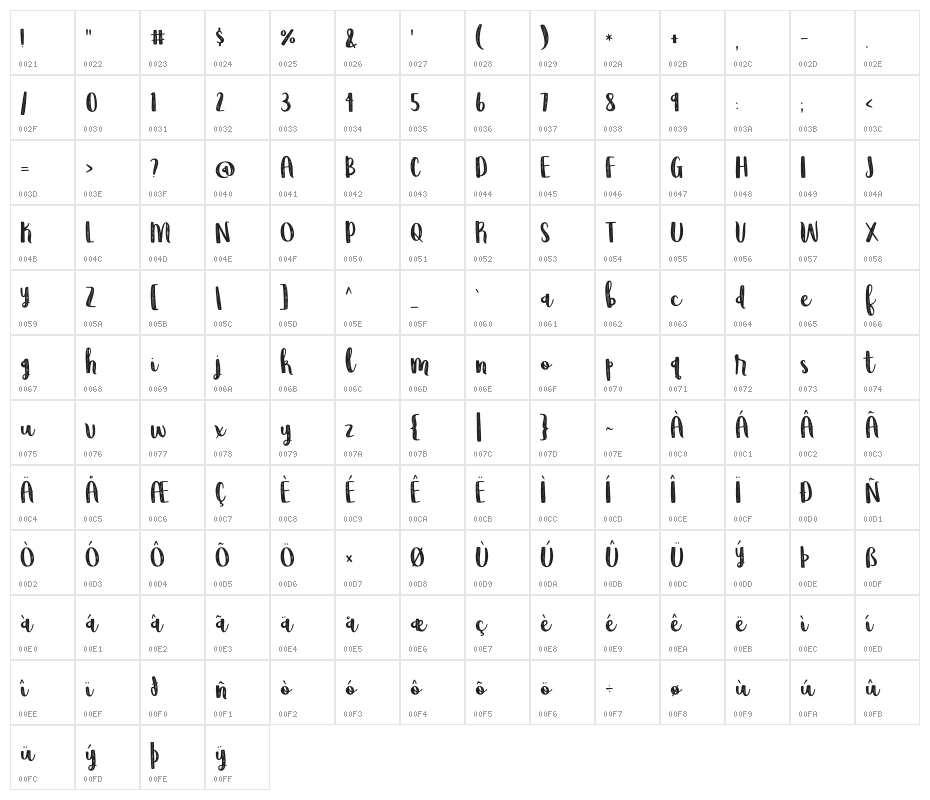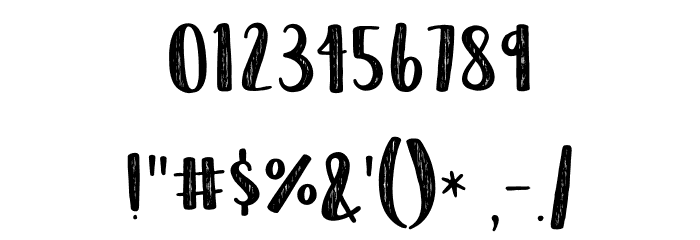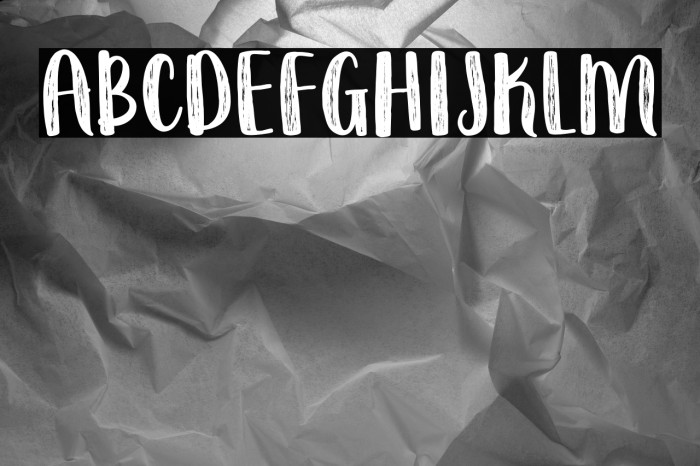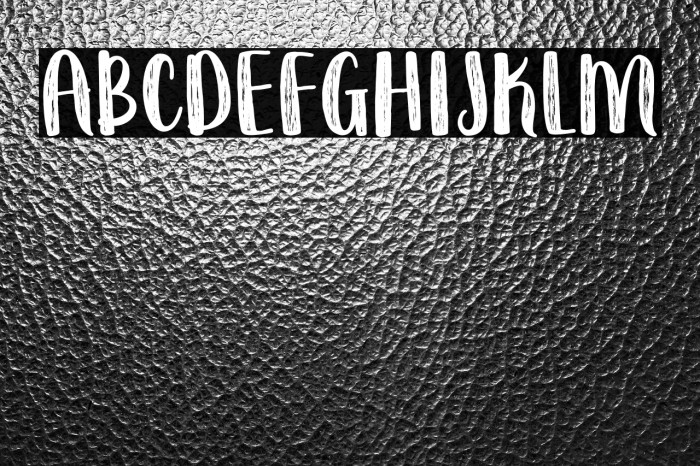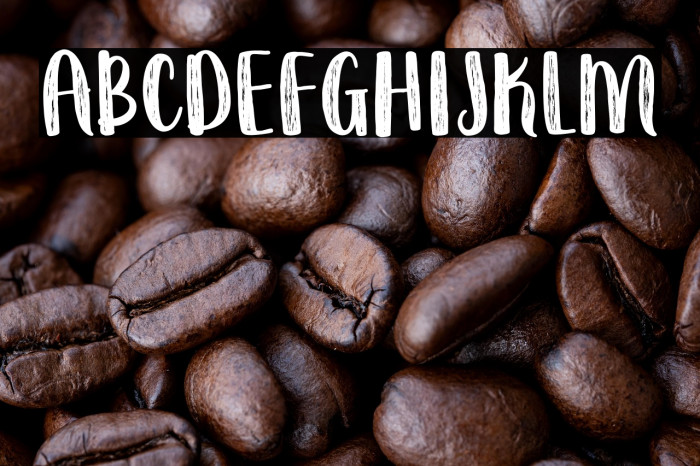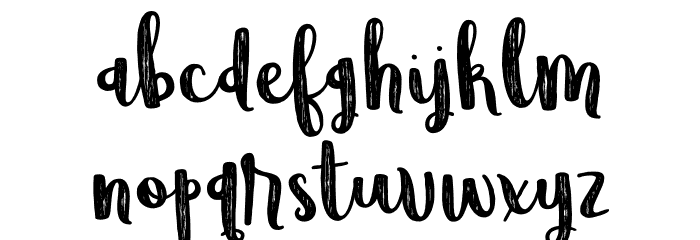
WildemountRough Font
WildemountRough Description
This font features a bold, hand-drawn style with a rough texture that gives it a rustic and organic feel. The letters are slightly irregular, adding to the handcrafted appearance. The uppercase and lowercase letters maintain a consistent style, with rounded edges and a playful, casual vibe. The numerals and special characters are designed to match the overall aesthetic, making it suitable for projects that require a touch of personality and creativity. The font's unique texture and style make it stand out, ideal for designs that aim to capture attention and convey a sense of individuality.